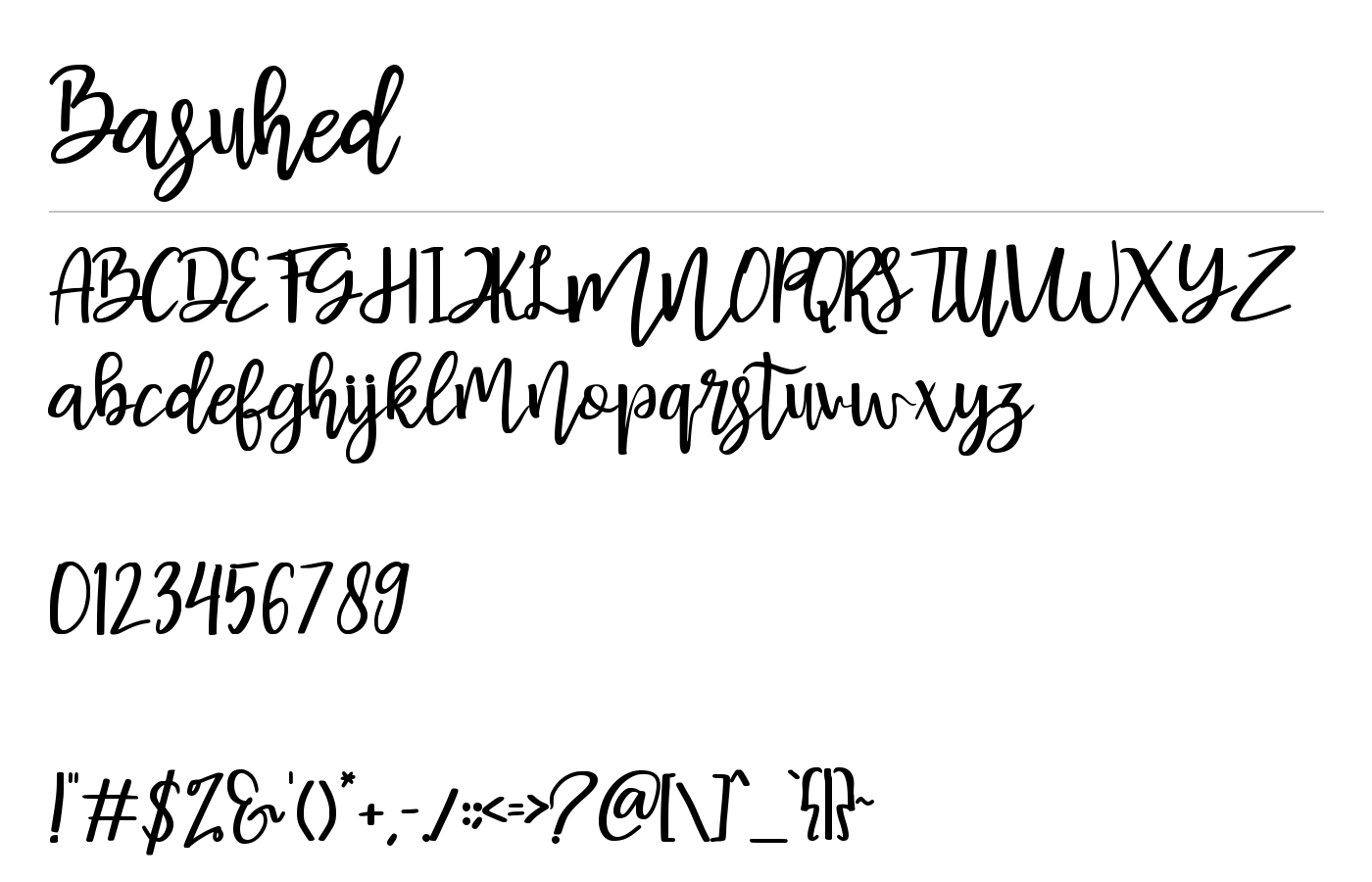
Basuhed is a lively and modern script font featuring smooth, flowing strokes that mimic natural handwriting with a friendly and approachable vibe. Its tall x-height and casual letterforms make it perfect for creative, personal projects such as branding, invitations, and social media graphics, where a warm and stylish touch is desired. The font balances elegance with readability, making it versatile for both headlines and display use.
Basuhed Font
About Basuhed Font